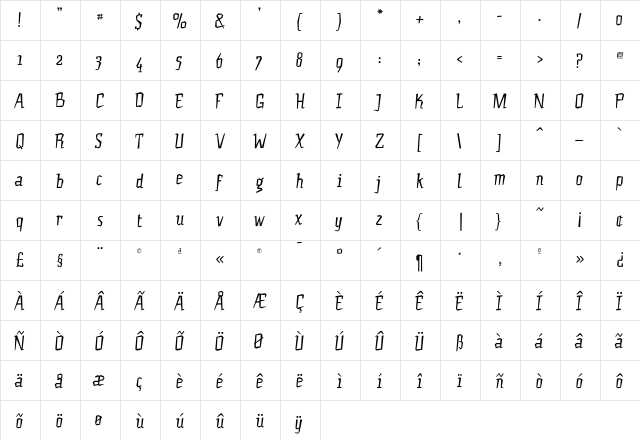
JacqueSlim Regular
Design Context for JacqueSlim Typeface
JacqueSlim takes a measured approach to typography — its balanced proportions and neutral character make it a reliable workhorse for both digital and print work.